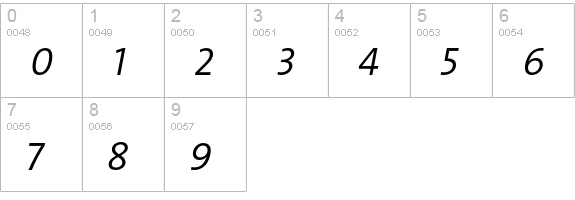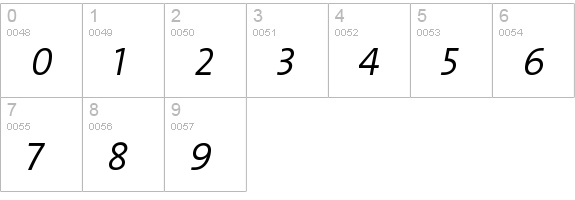
TheMix SemiLight- Caps Italic is a distinctive, italic variant in the TheMix typeface family \xE2\x80\x94 well suited to design and typography projects.
Introducing TheMix SemiLight- Caps Italic, a font that effortlessly combines elegance with a touch of playfulness. Designed with careful consideration, this font exudes a sense of sophistication while maintaining a modern twist. TheMix SemiLight- Caps Italic is the perfect choice for those seeking a font that stands out from the crowd. Its unique italicized, capital letter design adds a dynamic and captivating element to any project. Whether you're creating a logo, designing a website, or crafting a professional document, this font is sure to leave a lasting impression. What makes TheMix SemiLight- Caps Italic even more enticing is that it is available for free download at FontsMarket.com. Yes, you read that right - this incredible font can be yours without spending a dime. With just a few clicks, you can have access to a font that will elevate your design to new heights. The versatility of TheMix SemiLight- Caps Italic is truly remarkable. It seamlessly transitions from bold headlines to elegant body text, making it a valuable asset for a wide range of projects. Its clean and well-defined lines ensure legibility at any size, guaranteeing a polished and professional appearance in every application. This font's attention to detail is evident in its subtle curves and precise spacing, resulting in a harmonious and balanced design. The elegant slant of the italicized letters adds a touch of flair and creativity, while still maintaining readability and clarity. So why wait? Take advantage of this incredible opportunity and download TheMix SemiLight- Caps Italic for free at FontsMarket.com. Enhance your designs, captivate your audience, and make a lasting impression with this exceptional font. The possibilities are endless, and the choice is yours.